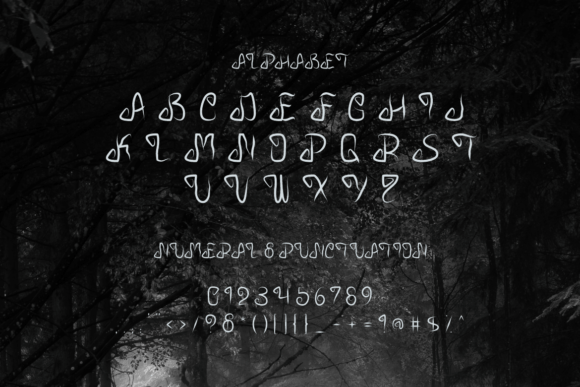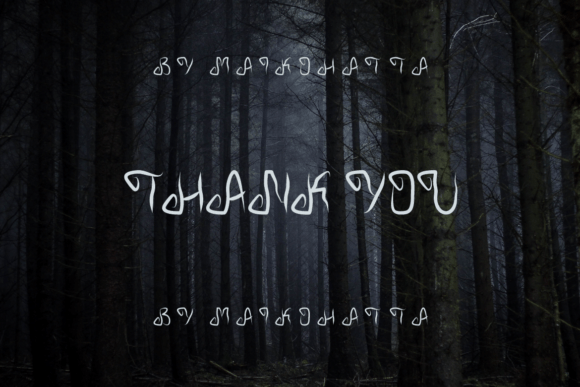
Unleash the Spooky Spirit with Caos Helloween Font
Are you looking for a font that can add a touch of eeriness and thrill to your designs? Look no further than the Caos Helloween Font. This bold and creepy display font is perfect for creating spooky and eye-catching designs that will leave a lasting impression on your audience. With its handwritten feel, Caos Helloween is ideal for a wide range of branding projects, from logos and t-shirt printing to esports and more.
What Makes Caos Helloween Font Stand Out?
Caos Helloween Font is a unique and versatile font that can add a touch of personality to any design. Its bold and creepy style makes it perfect for Halloween-themed designs, but it’s also suitable for other spooky or edgy projects. The font’s handwritten feel gives it a personal and organic touch, making it stand out from other display fonts.
Key Features of Caos Helloween Font
- Bold and Creepy Style: Caos Helloween Font has a bold and creepy style that’s perfect for creating eye-catching designs.
- Handwritten Feel: The font has a handwritten feel that gives it a personal and organic touch.
- Versatile: Caos Helloween Font is suitable for a wide range of branding projects, from logos and t-shirt printing to esports and more.
- Easy to Read: Despite its bold style, Caos Helloween Font is easy to read, making it perfect for designs that require a clear and concise message.
Use Cases for Caos Helloween Font
Caos Helloween Font is a versatile font that can be used in a wide range of design projects. Here are some use cases where Caos Helloween Font can shine:
- Logo Design: Caos Helloween Font is perfect for creating bold and eye-catching logos that will leave a lasting impression on your audience.
- T-Shirt Printing: The font’s bold style and handwritten feel make it perfect for t-shirt printing, especially for Halloween-themed designs.
- Esports: Caos Helloween Font can add a touch of edginess to esports designs, making it perfect for team logos, jerseys, and more.
- Halloween-themed Designs: The font is perfect for creating spooky and eye-catching designs for Halloween-themed projects, such as invitations, posters, and more.
Tips for Using Caos Helloween Font
Here are some tips for using Caos Helloween Font in your designs:
- Use it Sparingly: Caos Helloween Font is a bold font, so use it sparingly to avoid overwhelming your design.
- Pair it with Other Fonts: Pair Caos Helloween Font with other fonts to create a unique and visually appealing design.
- Experiment with Colors: Experiment with different colors to find the perfect combination that will make your design stand out.
Caos Helloween Font is a bold and creepy display font that’s perfect for creating spooky and eye-catching designs. With its handwritten feel and versatile style, it’s suitable for a wide range of branding projects, from logos and t-shirt printing to esports and more. Whether you’re a designer or a crafter, Caos Helloween Font is a great addition to your font collection. So, unleash the spooky spirit and get creative with Caos Helloween Font!